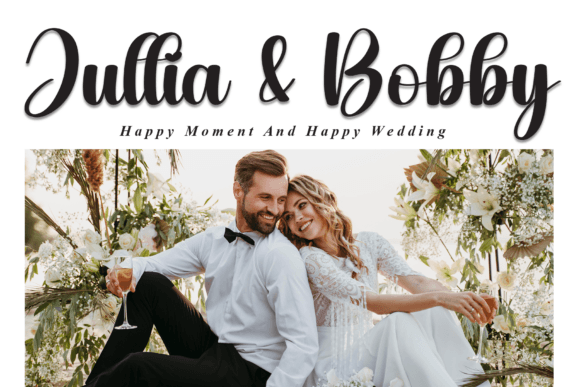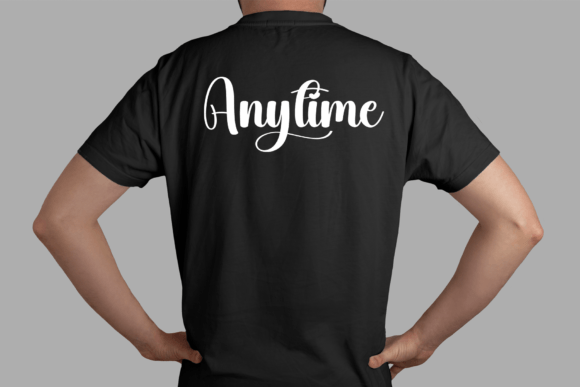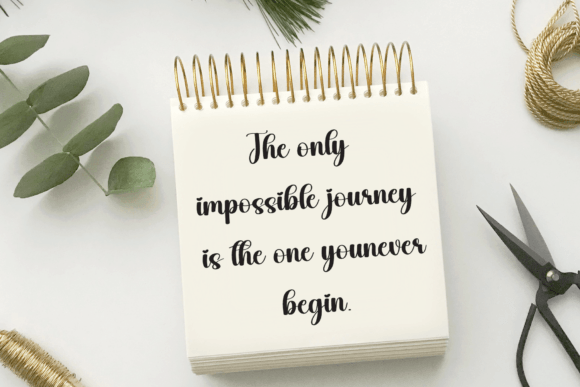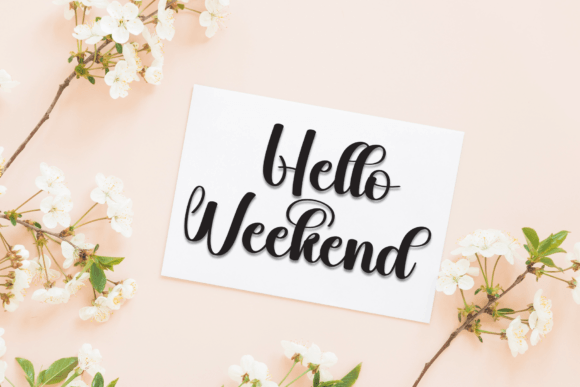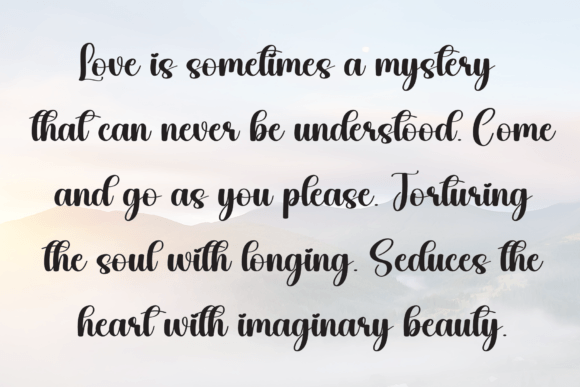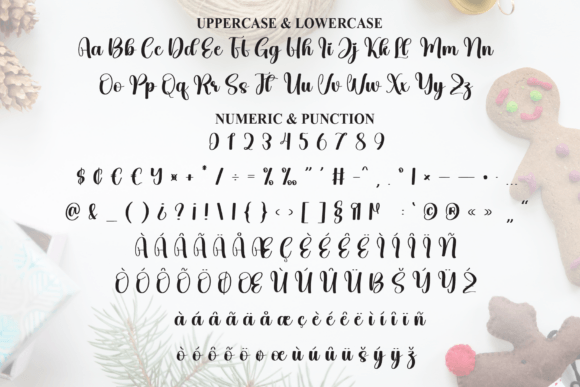
A Beautiful Script Font for the Holidays
Gingerbread Font is a beautiful script font that embodies the essence of the holiday season. Its smooth, flowing curves and classic calligraphy style exude charm and sophistication, making it perfect for cards, gift tags, invitations, and seasonal decorations.
What I Love About Gingerbread Font
- ✨ Smooth and flowing curves: The font’s elegant letterforms are a joy to look at and pair perfectly with winter-themed elements.
- ✅ Classic calligraphy style: Gingerbread Font brings a touch of sophistication and elegance to any design project.
- 🎉 Perfect for seasonal decorations: The font’s festive feel makes it ideal for holiday-themed projects, from Christmas cards to New Year’s Eve invitations.
While Gingerbread Font is a stunning addition to any design project, there are a few things to keep in mind: 🤔
- ⚠️ Limited use in body text: Due to its script nature, Gingerbread Font is best used for headings, titles, or short phrases rather than lengthy paragraphs.
- ⚠️ Requires attention to spacing: To ensure optimal readability, be mindful of the spacing between letters and words, especially when using the font for smaller text sizes.
Gingerbread Font comes with a range of OpenType features and glyphs that can enhance your designs. These include:
| Feature | Description |
| Stylistic Alternates | Provides alternative letterforms for a more customized look. |
| Glyphs | Offers additional characters, such as ornaments and swashes, to add visual interest. |
The Story Behind Gingerbread Font
Gingerbread Font was inspired by the traditional holiday treat, gingerbread. Its designer aimed to capture the warmth and coziness of the season in a beautiful, elegant script font. The result is a font that’s perfect for adding a touch of festive charm to any design project.